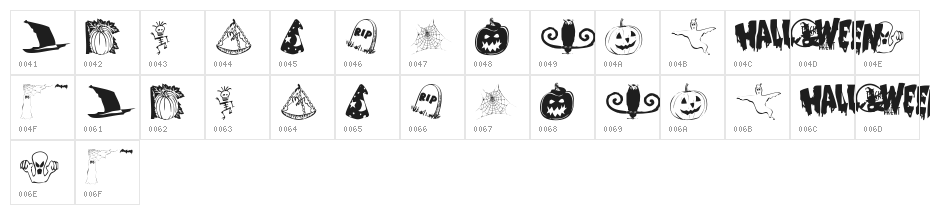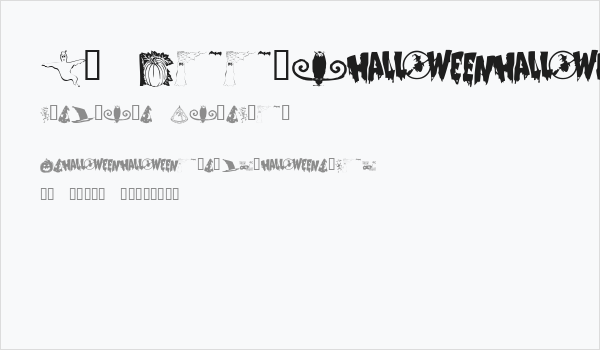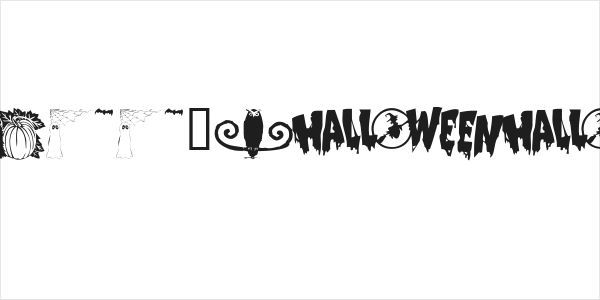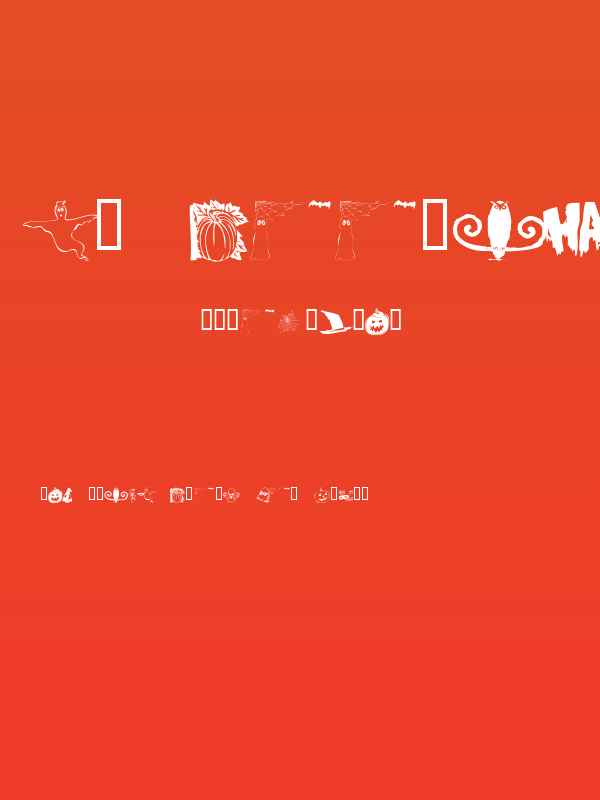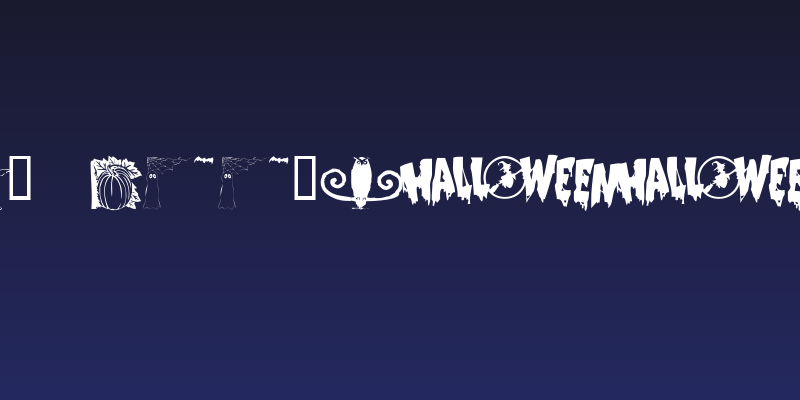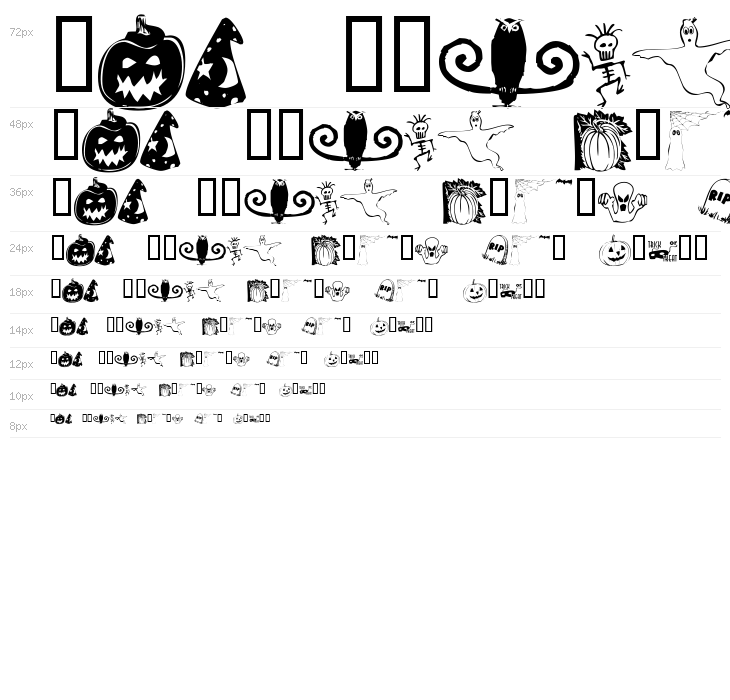
KR Booville Font
KR Booville Description
This decorative font is heavily themed around Halloween, featuring a variety of spooky and playful elements such as witches' hats, pumpkins, ghosts, and bats. Each character is uniquely designed to incorporate Halloween motifs, making it ideal for festive and themed projects. The font is bold and eye-catching, with intricate details that capture the essence of Halloween. It is perfect for creating a fun and eerie atmosphere in any design project.
| Proposed Projects | Ideal for Halloween party invitations, themed posters, event flyers, and festive decorations. |